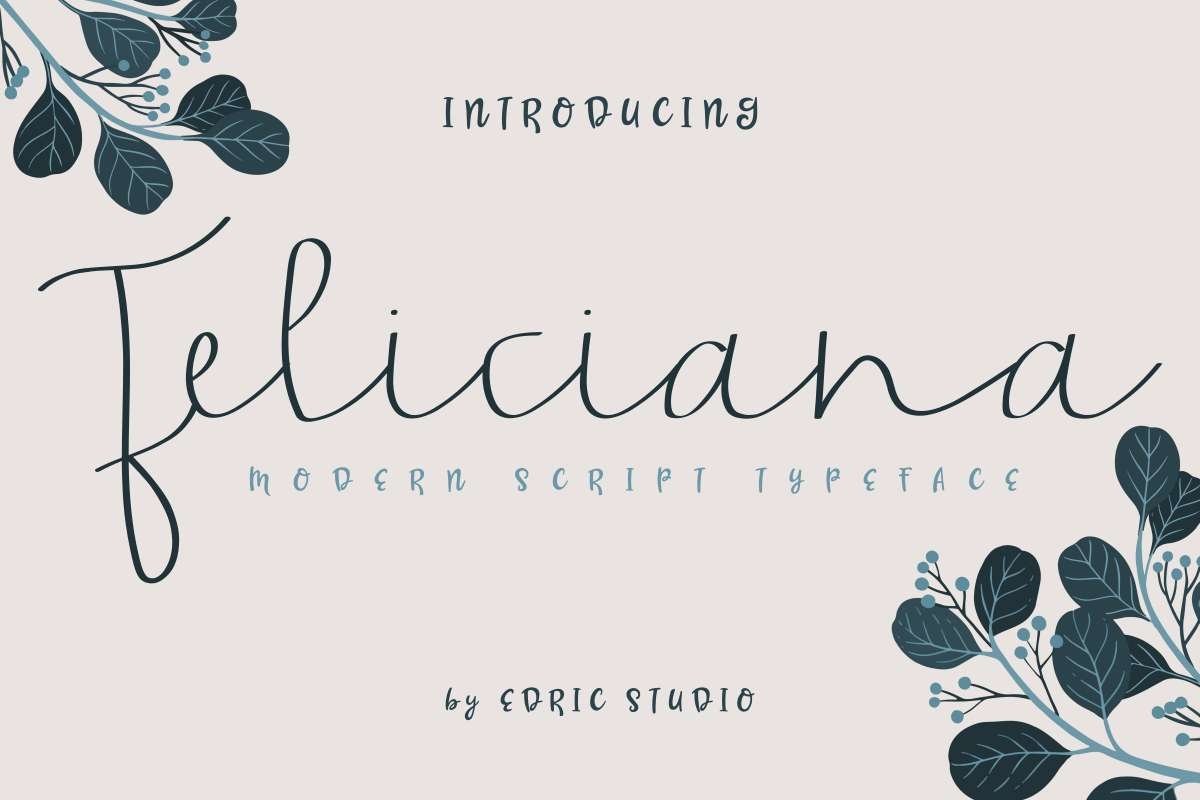
Feliciana
This is a handwrittenscript font. It has beautiful glyhps. This font will be great for branding, logo, stationery, business card, signage, flyer, brochure etc. There are many industries that is suitable for this font : real estate, music, law firm, make up etHere’s , you will get on the package:
Feliciana Handwritten Font has many alternative glyphs, It will suits many projects, the limit is only our creativity.This font will Work on PC & Mac with Simple installations. Accessible in the Adobe Illustrator, Adobe Photoshop, Adobe InDesign, even work on Microsoft Word. It’s also PUA Encoded Characters – Fully accessible without additional design software.The Feliciana Handwritten Font is also support many international languages.Purchase right away! =)